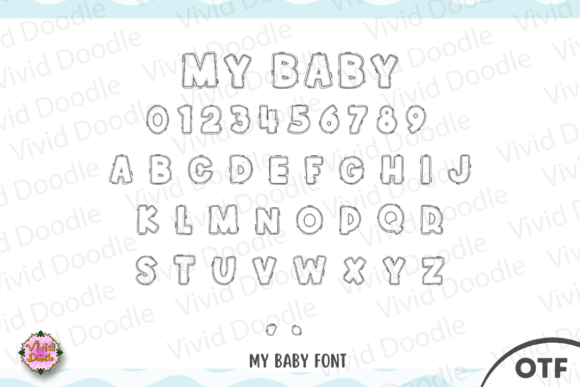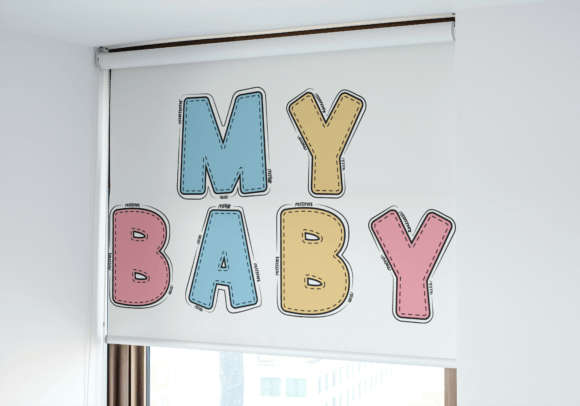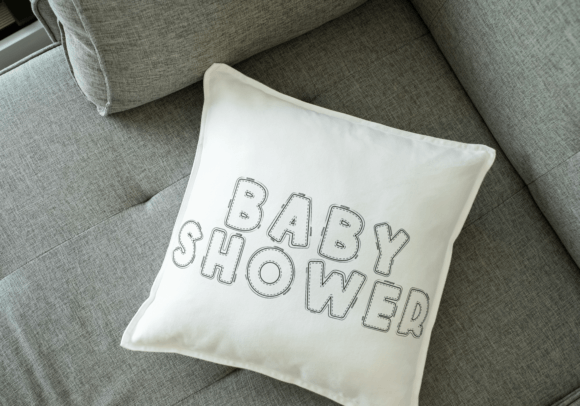
My Baby Font
Introducing My Baby, a charming and whimsical typeface that effortlessly makes every word delightful. This font is more than symbols and alphabets; it’s a playful masterpiece, drawing young minds into the joy of learning. With its alphabet letters and numbers designed with the perfect blend of mischief and cuteness, imagine creating educational content that is as fun as it is instructive. Ideal for kids’ books or materials, My Baby mixes a touch of youthful allure with a sprinkle of early childhood magic, creating an appeal that young learners cannot resist. The endearing charm radiates through each letter, making My Baby the dream typeface for anything child-centric.